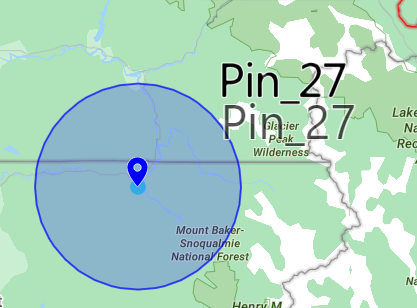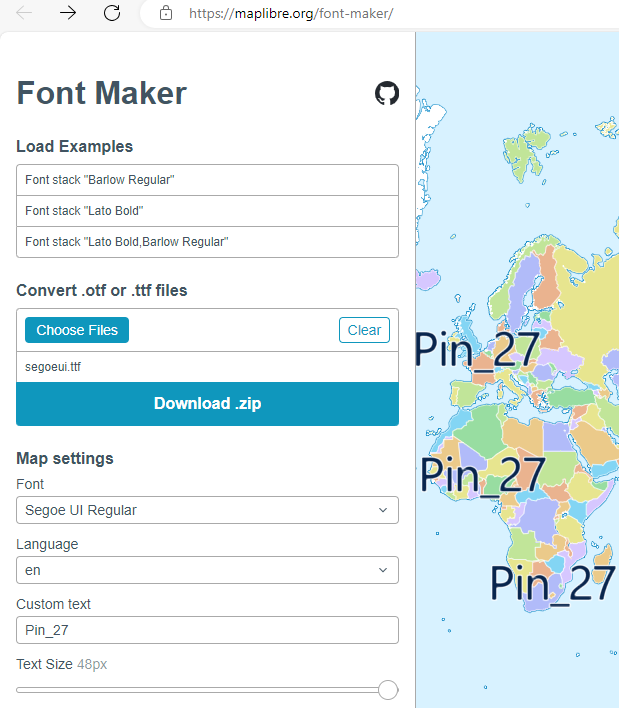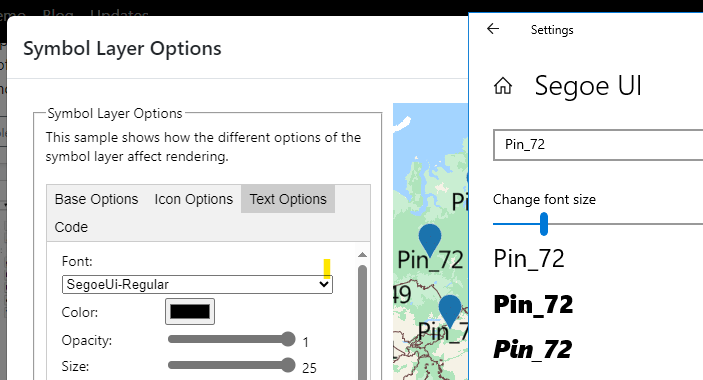
Thanks for reaching out. Regarding to this issue you've encountered, if this blocked you urgently, you could try to download Segoe UI version 5.01 for generating the same font that Azure Maps is using.
Azure Maps SymbolLayer Font Issue
Based on another question that I had asked (https://learn.microsoft.com/en-us/answers/questions/1864345/azure-maps-drag-drop-labels-for-polygons-and-symbo), I have successfully implemented a feature that allows dragging a SymbolLayer "label" based on copying it's settings to an Html Marker, however the SegoeUi-Regular font that I am using for the Html Marker doesn't seem to match the SegoeUi-Regular font that is used by the SymbolLayer in Azure Maps.
Example of hovering over a SymbolLayer's "label" and creating the HTML Marker, which should align perfectly:
Dragging the Html Marker:
And here is a screenshot of comparing the font used in an Azure Maps sample (https://samples.azuremaps.com/symbol-layer/symbol-layer-options) compared to the Windows Font Settings viewer (the first example in the Windows Font Settings viewer is the Segoe UI Regular font - segoeui.ttf):
Comparing the 2 and the 7 in all of the above screenshots, it is clear that the SegoeUi-Regular font used by Azure Maps is not the same as the one that I downloaded from Microsoft.
Is there a source for the fonts used by Azure Maps that I can use in my application so that the fonts will align?
rbrundritt 21,611 Reputation points2024-12-05T18:03:10.2666667+00:00 I'm fairly certain the same font file was originally used, however, in order to be used by WebGL, the font file goes through a conversion process to create a glyph file as font's are actually drawn like shapes in WebGL (this is how MapBox and MapLibre work which is what the Azure Maps Web SDK is built on top of). This is likely the reason for the discrepancy and there isn't a whole lot we can do about this. Here is and an example tool https://maplibre.org/font-maker/
2024-12-12T18:22:46.5466667+00:00 Bubbling up this question as it seems to have been lost after my last comment on the previous answer. Specifically:
Are any of the other fonts used by Azure Maps available for download (I was only able to find the Segoe UI font to download from Microsoft)?